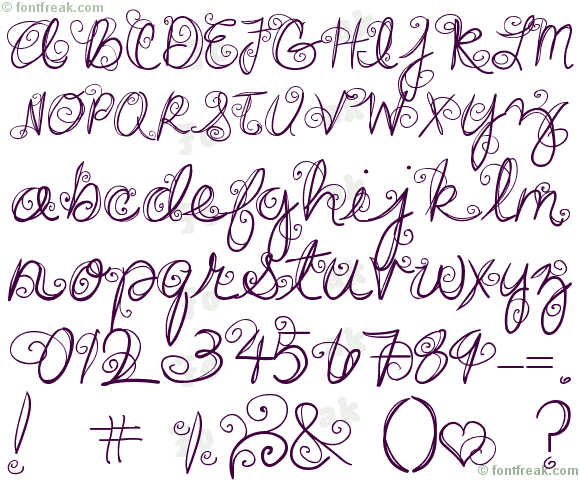
DJB SWIRL ME AROUND is a captivating decorative typeface designed by Darcy Baldwin, falling under the category of script fonts. Released in 2006 and updated in 2010, this font offers a unique blend of whimsy and elegance, making it a perfect choice for various creative projects. The font features fluid, swirling strokes that exude personality while maintaining legibility. Its thin to medium stroke weight and moderate contrast create an inviting visual appeal, while the generous spacing between letters enhances readability.
This font is particularly well-suited for wedding invitations, where its romantic curves can beautifully complement the theme of love and celebration. Additionally, it works wonders for greeting cards, providing a charming touch to personal messages. DJB SWIRL ME AROUND is also an excellent choice for restaurant menus, where its decorative flair can elevate the dining experience, making the menu items seem more enticing. Graphic designers will find this font useful for branding projects that require an artistic and approachable style, while content creators can utilize it for social media graphics that need a unique and eye-catching typography.
In summary, DJB SWIRL ME AROUND stands out due to its playful yet elegant design, making it versatile enough for various applications. Its unique characteristics and free availability allow creative minds to express themselves in a visually appealing way, ensuring that every project can leave a lasting impression.